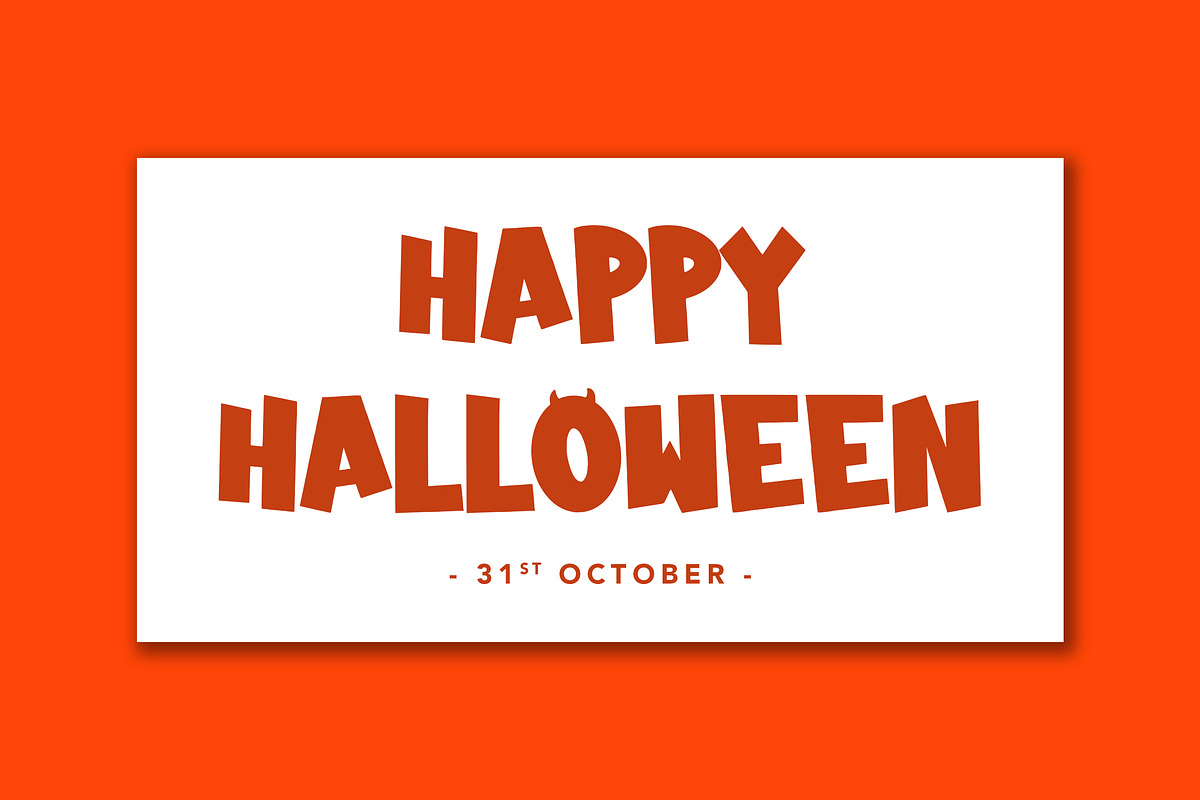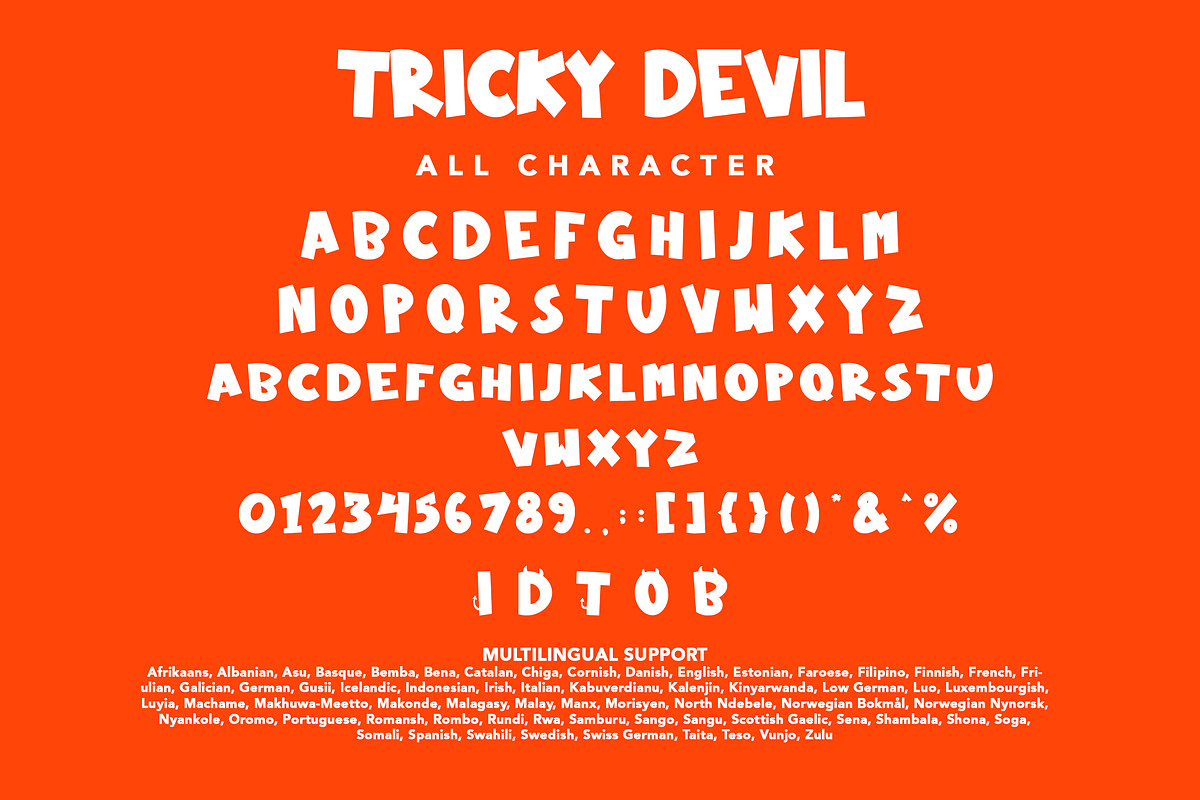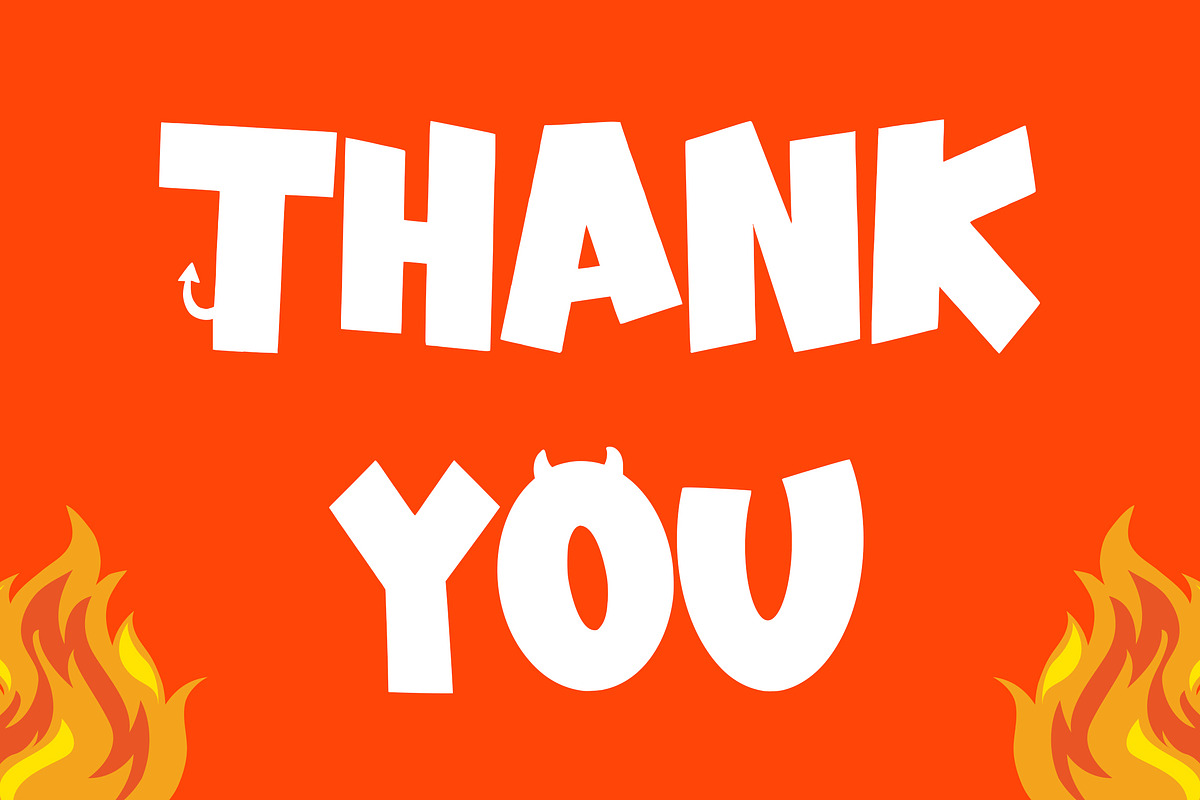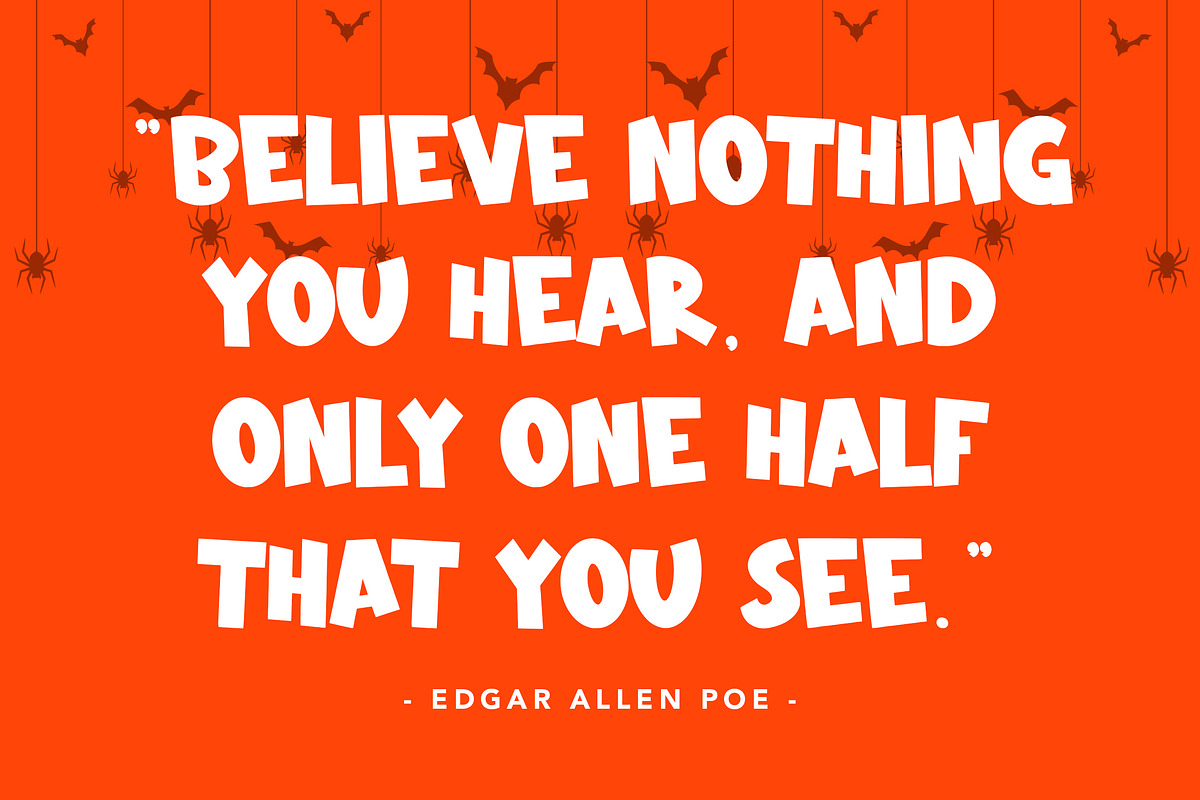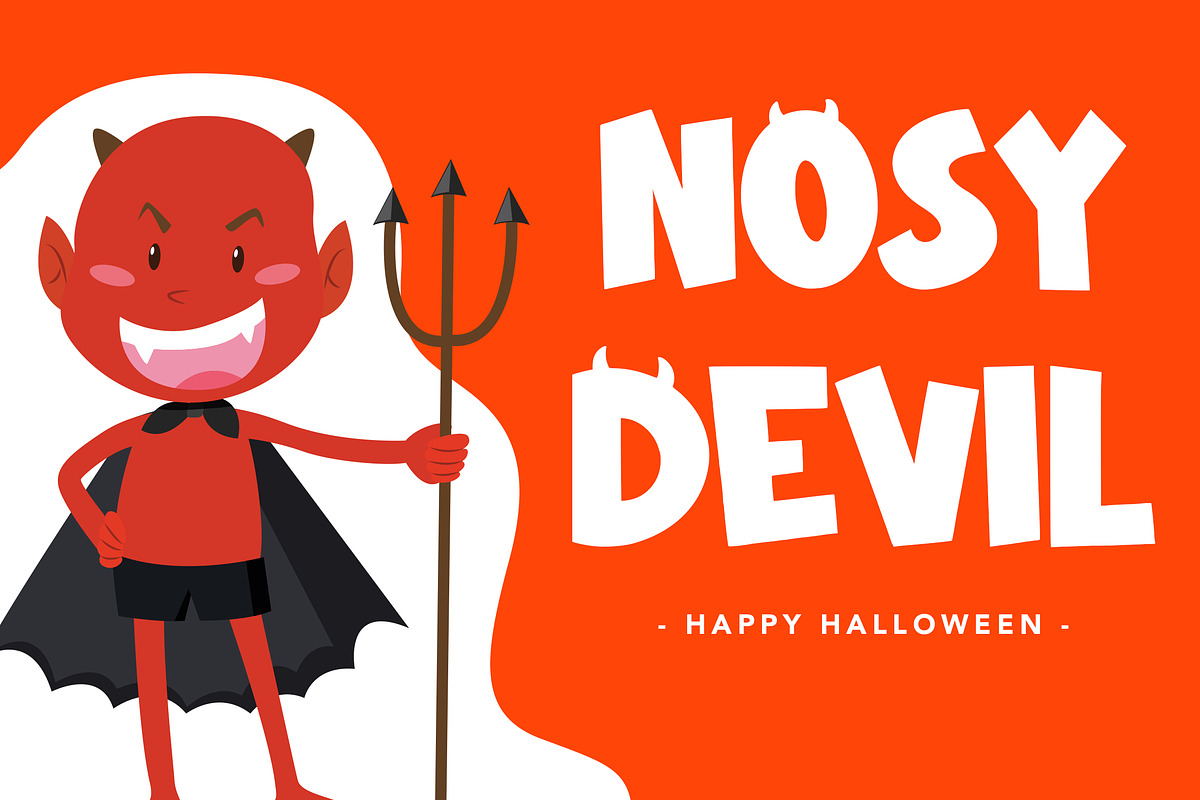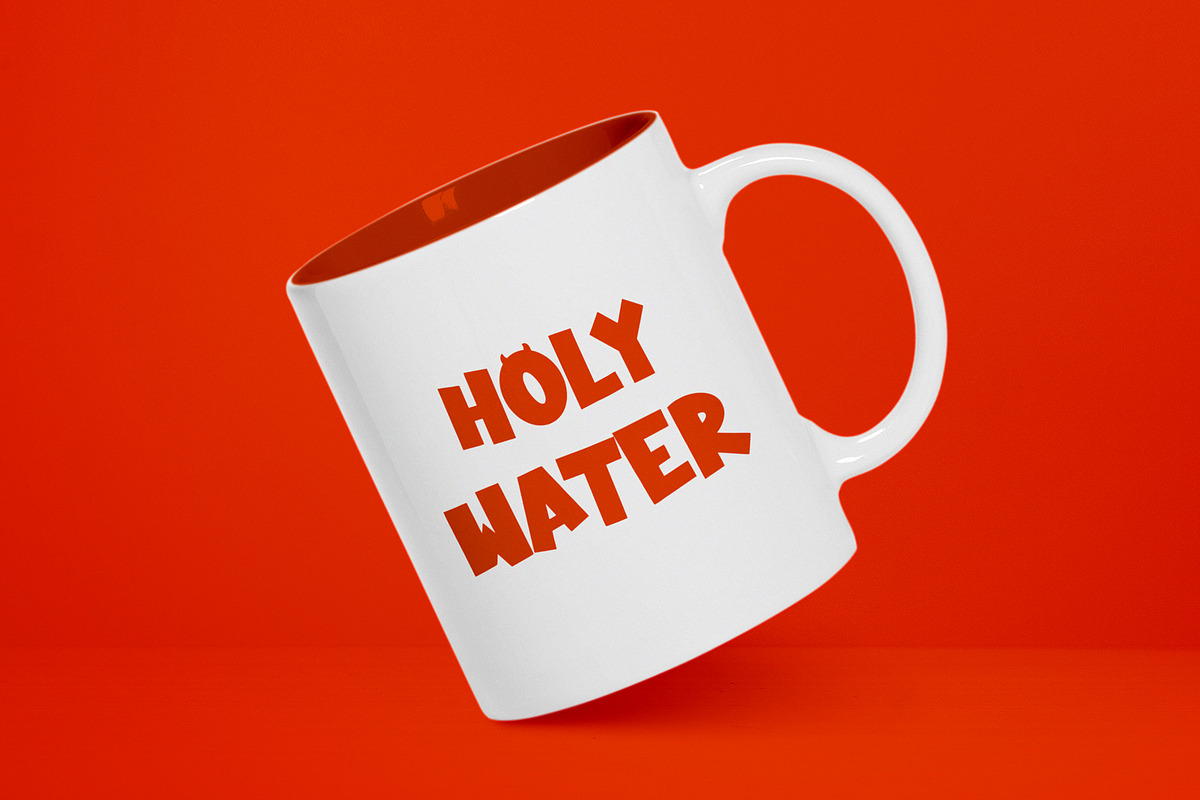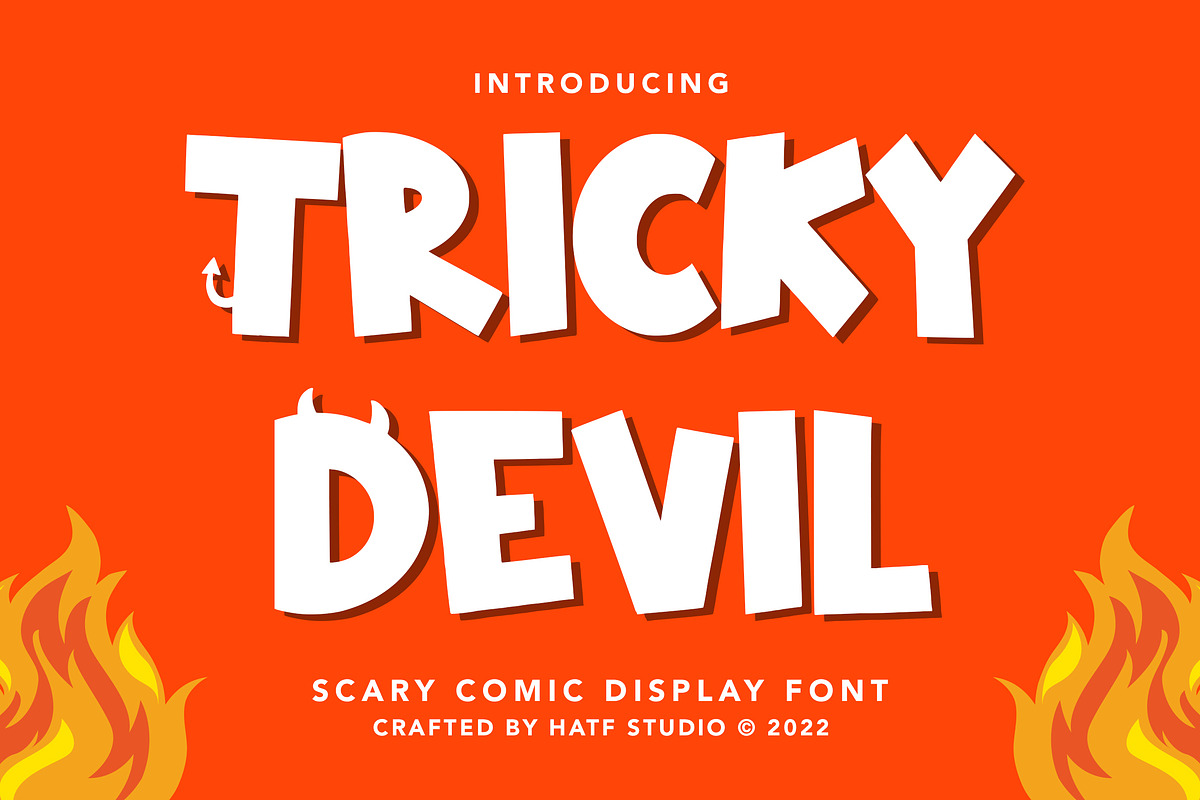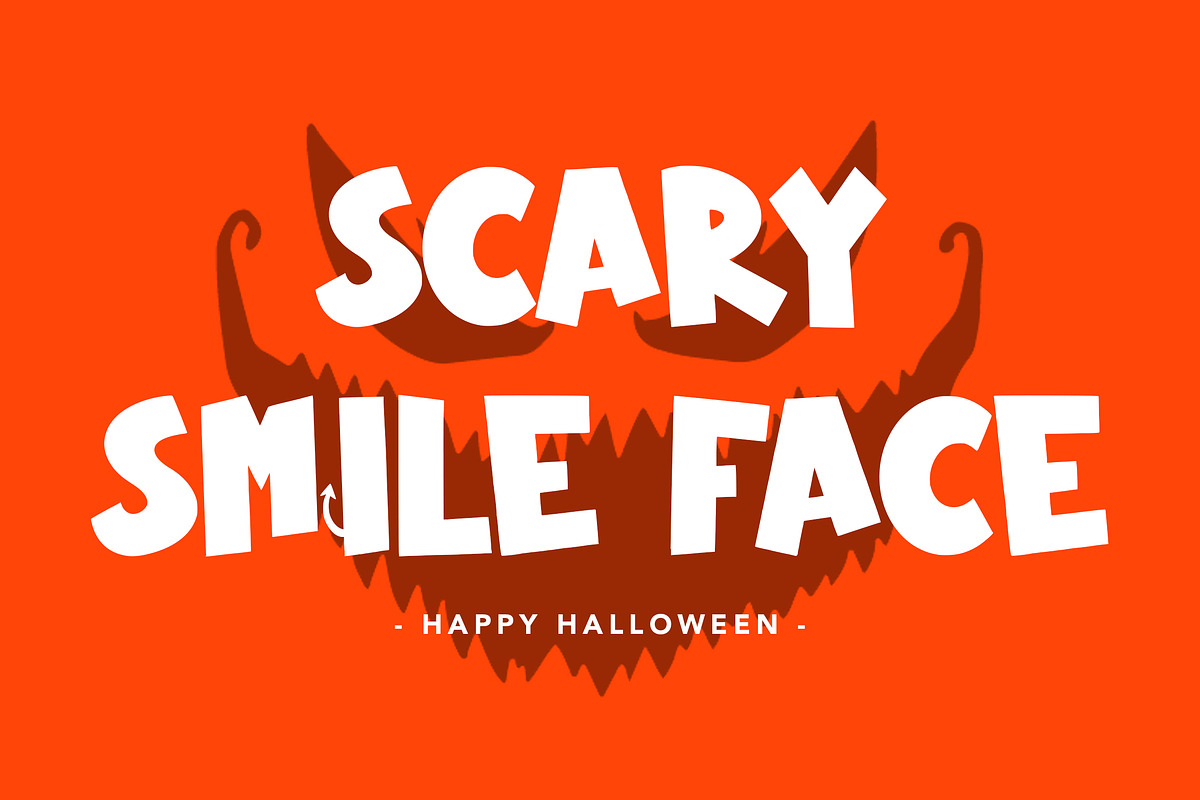
Tricky Devil
Is a scary comic display font with distinctive handwritten characters perfect for branding projects, logos, clothing designs, media posts, advertisements, product packaging, product designs, labels, photography, watermarks, invitations, stationery, and any project who need handwritten dishes.